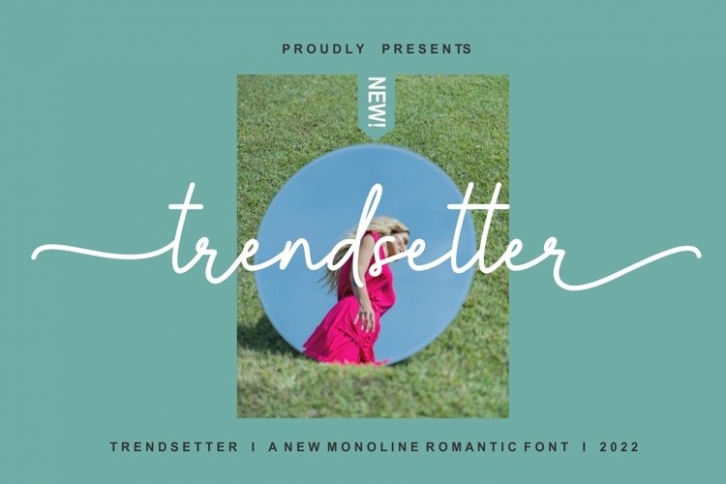
Trendsetter is a beautiful font that was designed by plusstore. It's a great choice for designers and creatives who need such a font. It was released on July 31, 2022 and the file size is 12.26 MB. Trendsetter may give a more youthful, expressive and casual look to your project. It is a very beautiful, refined, elegant, and high-quality font.